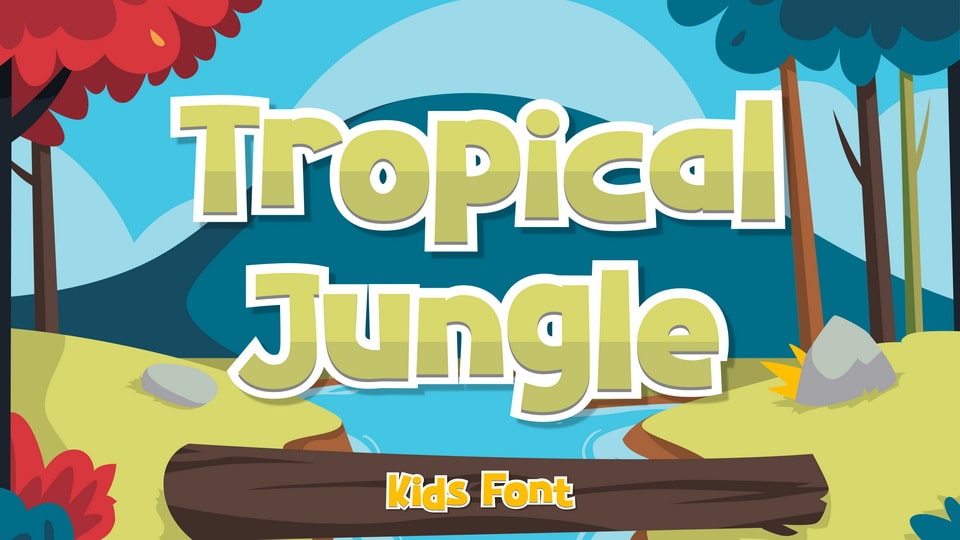
Download Tropical Jungle font, a kids typeface. Suit perfectly for kids themes books market, online games, stationary, school supplies font, poster, birthday invitation, Youtube covers, Youtube thumbnails, social media page covers and so on…